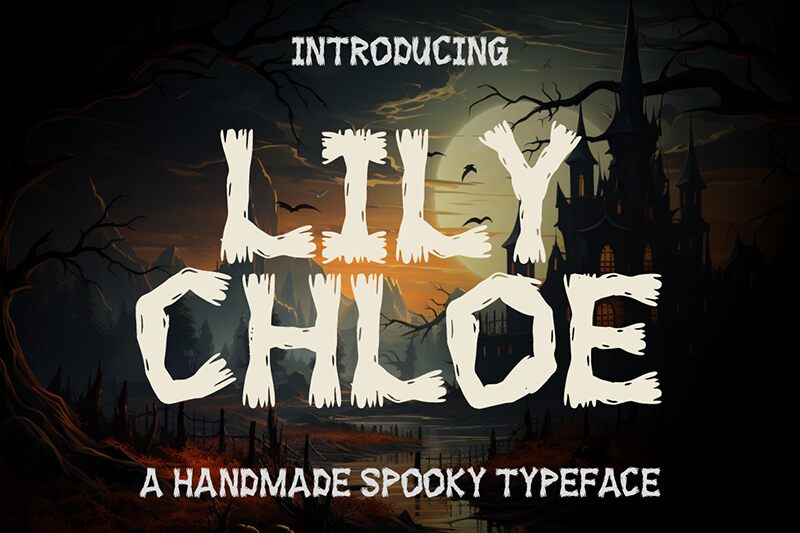
LILY CHLOE
Lily chloe font by Gilang Ternadho is a free Halloween display font. Thick, inky strokes flare into frayed, twig-like tips, as if letters were tied from broom bristles and torn cloth. The rhythm is bold and uneven in a way that feels handmade, giving headlines a gritty, haunted-forest vibe without losing legibility at a glance.
Using Lily chloe, seasonal graphics snap to life: haunted house flyers, party posters, yard signs, trick‑or‑treat bags, social posts, stickers, and YouTube thumbnails for spooky content. Its chunky silhouettes hold up at large sizes and read well on dark backgrounds. For balance, pair this free font with a clean, light-weight sans to handle body copy or dates beneath those rough-hewn titles.